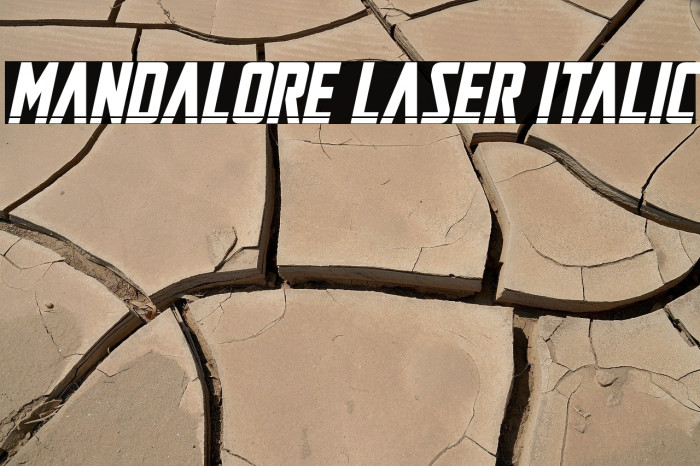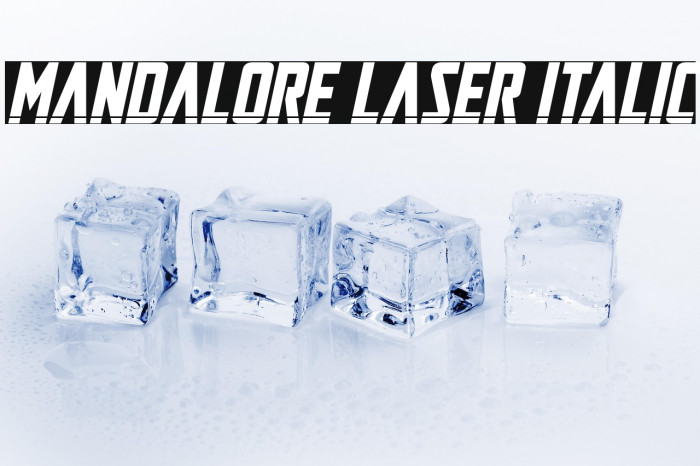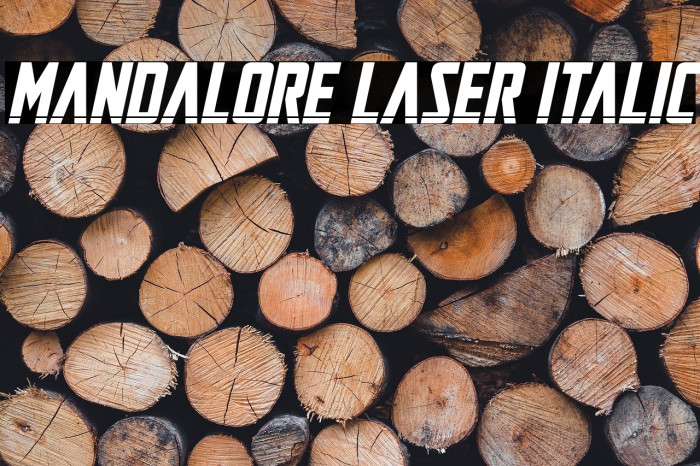
Mandalore Laser Italic Font
Mandalore Laser Italic Description
This dynamic and futuristic font features bold, angular letterforms with a distinct slant, giving it a sense of motion and energy. The uppercase letters are particularly striking, with sharp edges and a consistent geometric style. The inclusion of a silhouette within the letter 'A' adds a unique character to the font. The numbers and special characters maintain the same angular and bold design, ensuring consistency across all glyphs. This font's strong presence and modern aesthetic make it ideal for projects that require a bold statement.
| Overall Style | Futuristic, Dynamic |
| Proposed Projects | Ideal for sci-fi themed projects, video game titles, movie posters, and branding that requires a modern and bold aesthetic. |